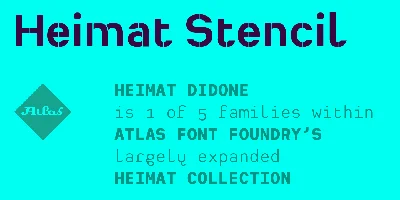
Heimat Stencil Font
Heimat Stencil Font is perfect for urban street art campaigns, industrial warehouse signage, military equipment labeling, cargo container marking, modern stencil artwork, transportation branding, and rugged outdoor advertising that requires bold, functional typography.
This font is exciting because it merges traditional stencil functionality with contemporary German design precision, featuring clean-cut letterforms that convey strength, efficiency, and industrial authenticity while maintaining exceptional legibility for practical marking applications.
The Heimat Stencil Font family includes light, regular, and bold weights with condensed variants, offering uppercase and lowercase letters, industrial numerals, functional symbols, utilitarian punctuation marks, and stencil-specific elements designed for marking and signage applications.
Industrial designers frequently select Heimat Stencil Font for projects requiring authentic stencil character and functional design authority. This powerful typeface transforms ordinary communications into compelling statements of industrial strength and German engineering precision that immediately resonate with audiences seeking genuine functionality and robust design solutions. The font's utilitarian character makes it exceptionally effective for logistics companies, manufacturing brands, and urban culture applications where industrial authenticity and practical functionality must be communicated through every visual element. Its systematic approach bridges traditional stencil marking with modern design aesthetics, making it invaluable for brands celebrating industrial heritage and contemporary urban culture. The precisely engineered cut-outs maintain their clarity across spray applications and digital platforms, ensuring consistent brand recognition and functional performance. Whether you're developing transportation company branding, creating urban art installations, or designing industrial equipment marking systems, this typeface provides the authentic voice and visual strength that distinguishes genuine industrial design from decorative stencil imitations, establishing immediate credibility among professionals who demand both functional excellence and authentic German design precision in their industrial communication systems.